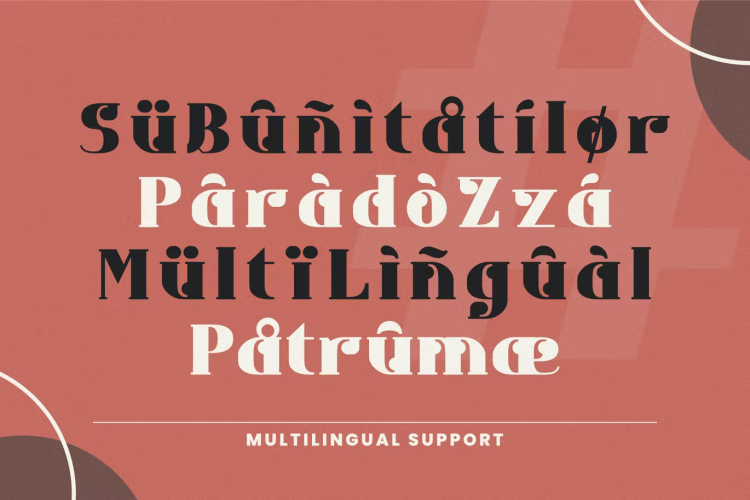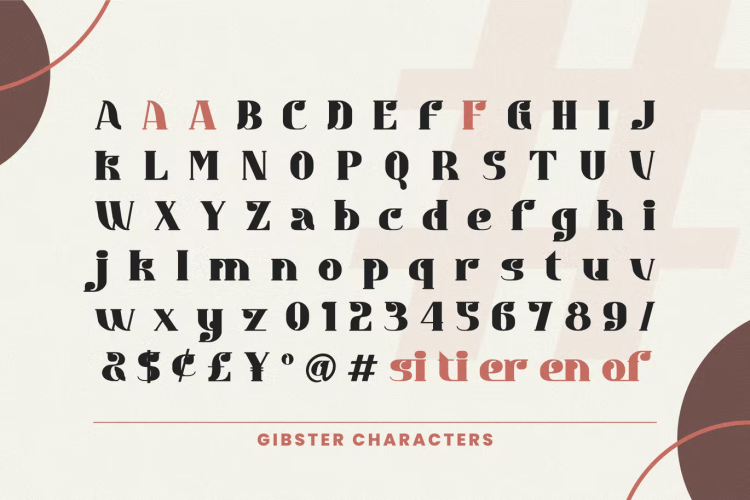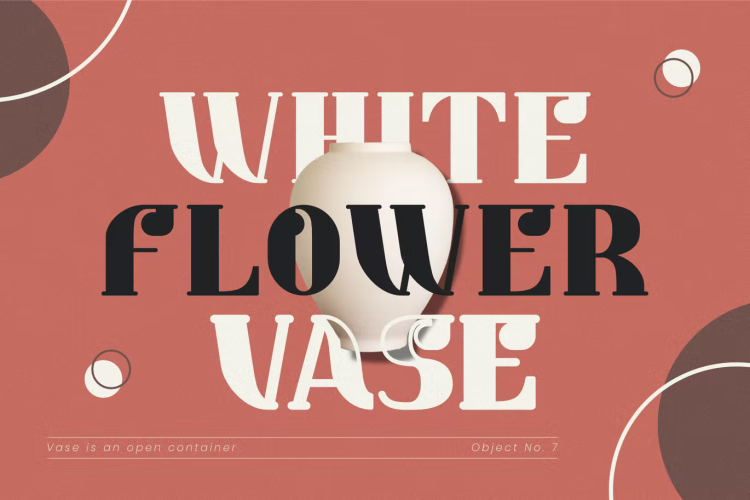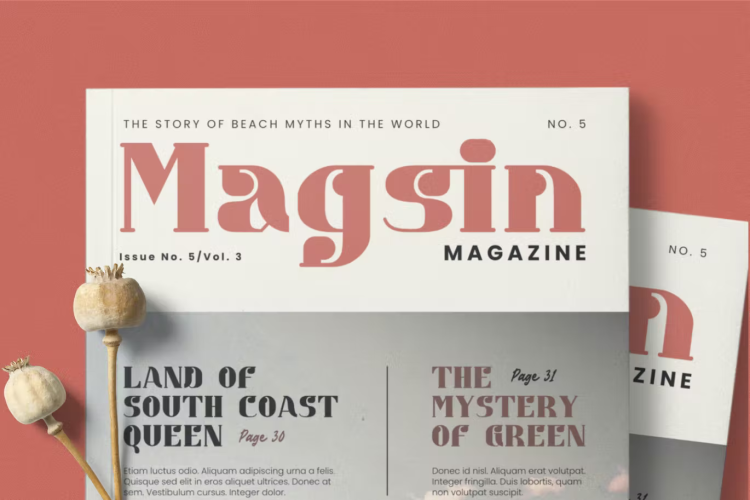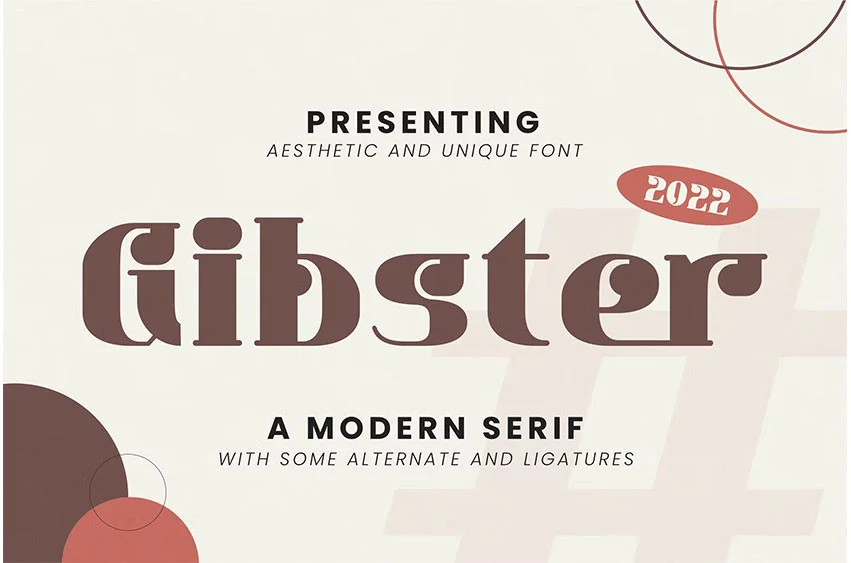
Gibster Font
Gibster Font Product is perfect for many of your projects like logos & branding, photography, invitations, watermarks, advertisements, product designs, stationery, wedding designs, labels, product packaging, special events, and much more.
Where Gibster Font works best
Headlines and titles
Gibster Font has enough character to carry a headline on its own; set it large and keep the supporting text plain.
Brand and product names
Short strings are where this typeface is strongest — a name, a label, a cover line.
Social and video graphics
Set Gibster Font over a flat colour or a quiet photograph so the letterforms stay the focus.
What kind of work does Gibster Font suit?
It sits in the Modern Serif Font group and reads as branding, modern, modern serif font, packaging. That makes it a candidate wherever those qualities help: headings, packaging, social graphics and brand work. Set it at the size you plan to use before deciding.